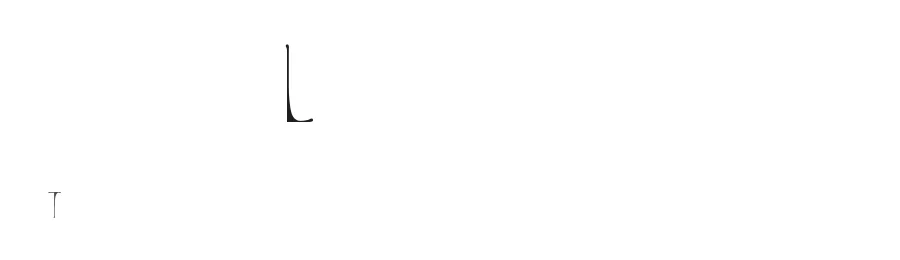
About Correy's Font
Correy's is a decorative font designed by The Space Wanderer. It includes 653 glyphs, a regular weight, TTF (TrueType) format, and 292 languages. Correy's is free to download; check the license details on this page before commercial use. Decorative fonts like Correy's work best for logos, posters, packaging, and standout headlines.
Correy's Font is a decorative font that shines as a display or heading face. Pair it with a clean sans-serif or serif font for body text β the contrast creates a clear hierarchy while the two styles stay balanced and easy to read.
Correy's Font
Correy's Font is a decorative typeface by The Space Wanderer, ideal for logos, invitations, branding, and creative projects.